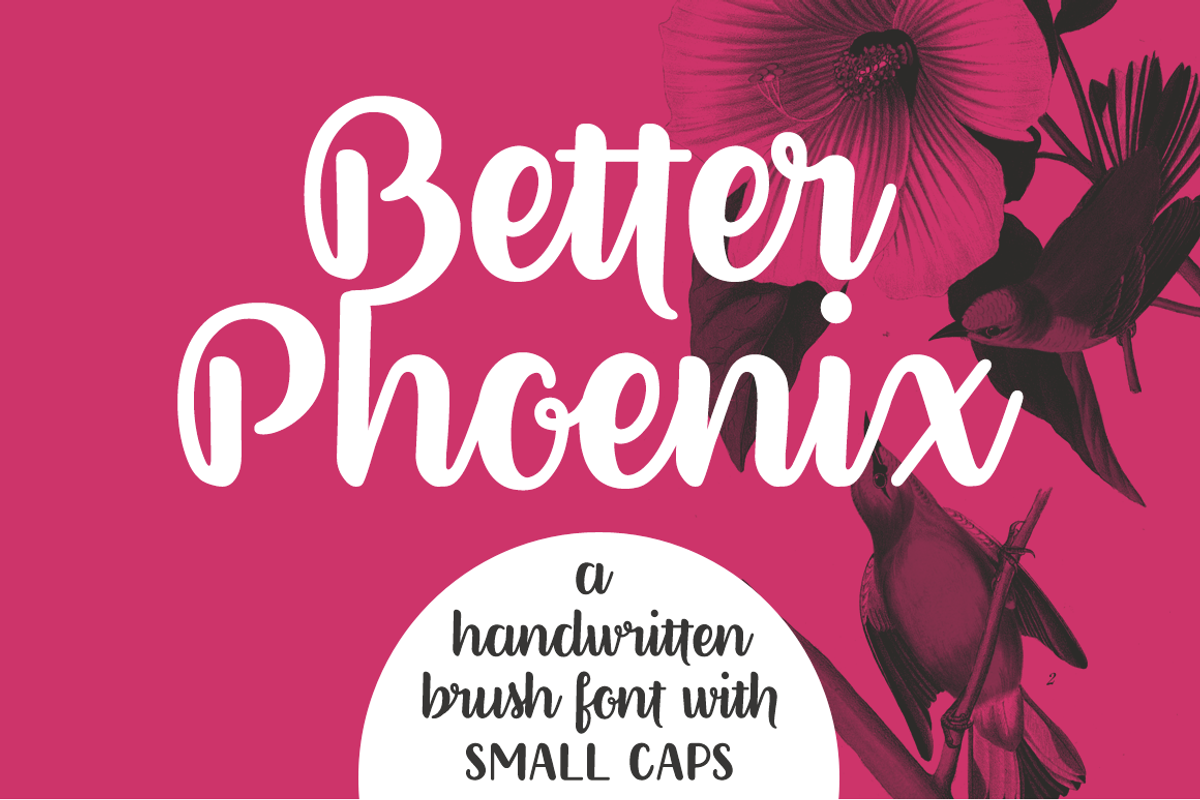
Make a statement with the bold, artistic energy of Better Phoenix Brush Font Free Download. This dynamic brush-style script font brings hand-painted flair to your designs, making it perfect for posters, logos, t-shirt designs, social media posts, and branding that requires a touch of personality and creativity.
Better Phoenix features textured strokes and smooth curves, capturing the raw energy of brush lettering while maintaining legibility and style. It includes uppercase and lowercase letters, numerals, punctuation, and stylistic alternates—great for testing expressive, high-impact layouts.